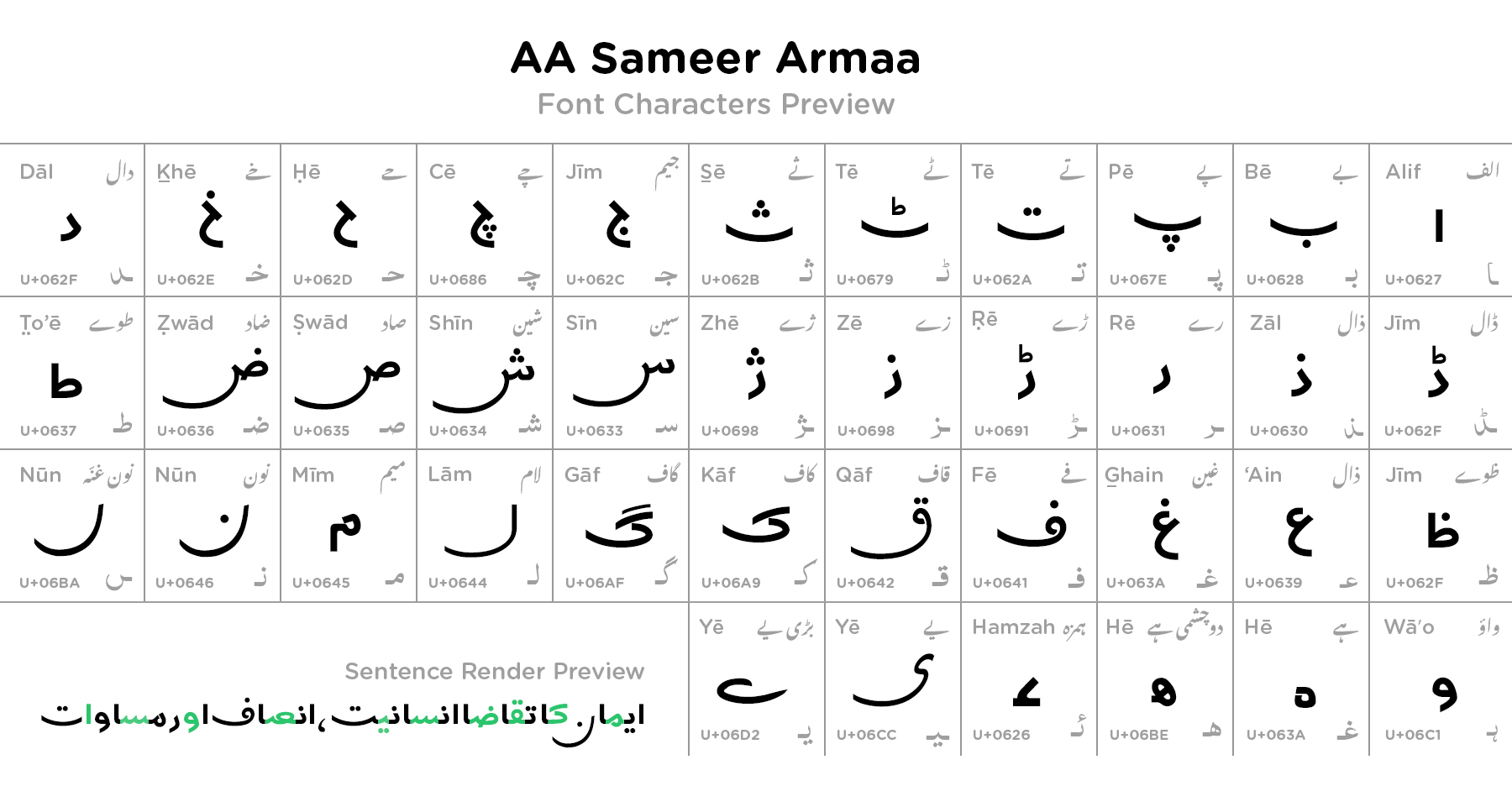
Choosing the right font can be a game changer in Urdu graphic design. AA Sameer Armaa Unicode is a TrueType Arabic font designed by the famous calligrapher AA Sameer and belongs to the font family AA Sameer. This font’s compelling design and sharp edges seamlessly integrate the aesthetic appearance and leave a lasting impression, making it the ideal solution for all of your graphic design and calligraphic needs. The font consists of a charset of 444 letters and symbols with 497 glyphs. Moreover, it is compatible with the latest Unicode blocks, including Arabic, basic Latin, currency symbols, letterlike symbols, Mathematical Operators, and more. The font draws inspiration from traditional Arabic and Urdu calligraphy, featuring connected characters and flowing letterforms. The letters have a graceful, handwritten quality, with subtle variations in stroke thickness and emphasis on certain curves. Whether you’re creating stunning logos, making eye-catching banners, visuals for your business, or any type of designing project it would be the best and go-to option for all your designing needs.